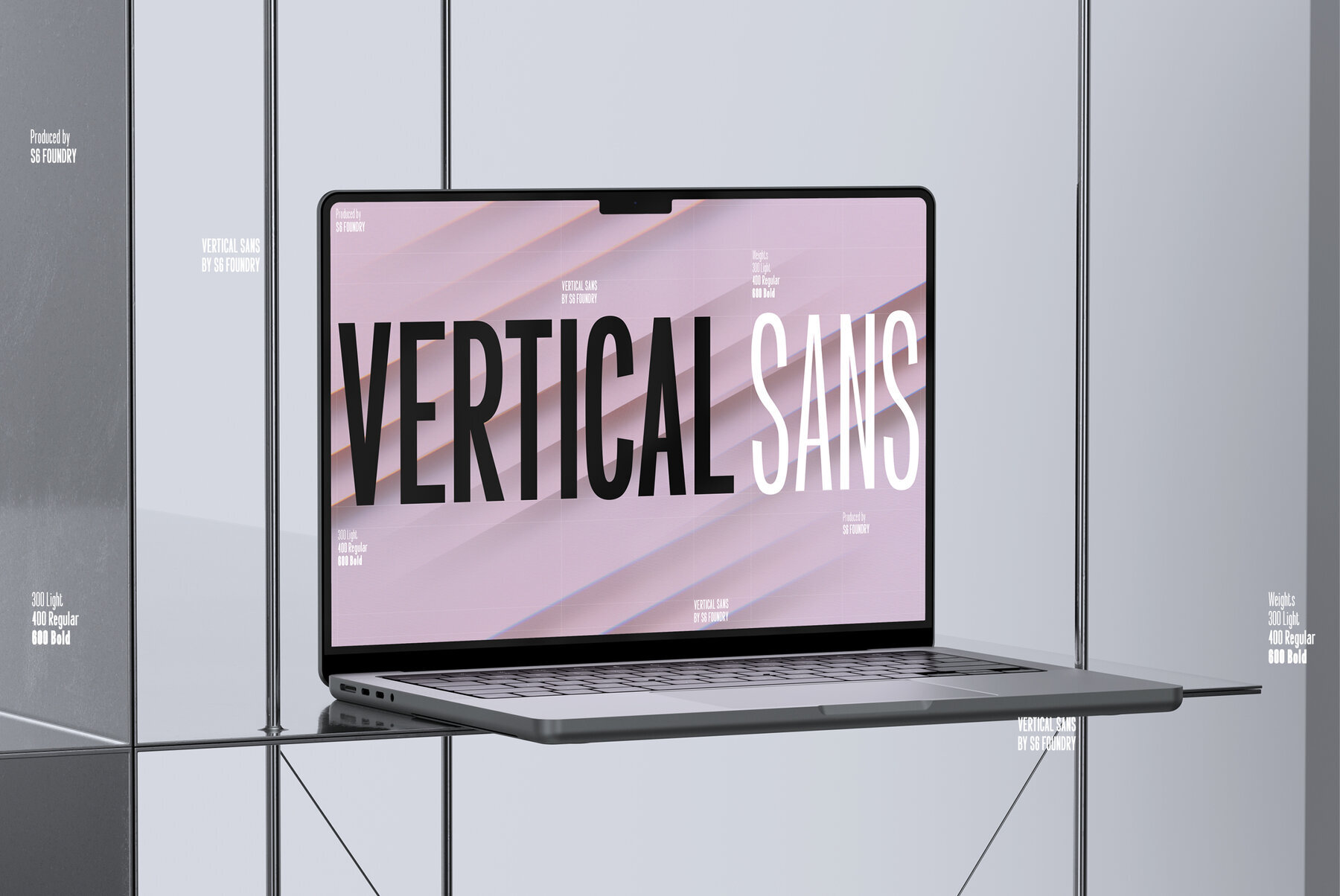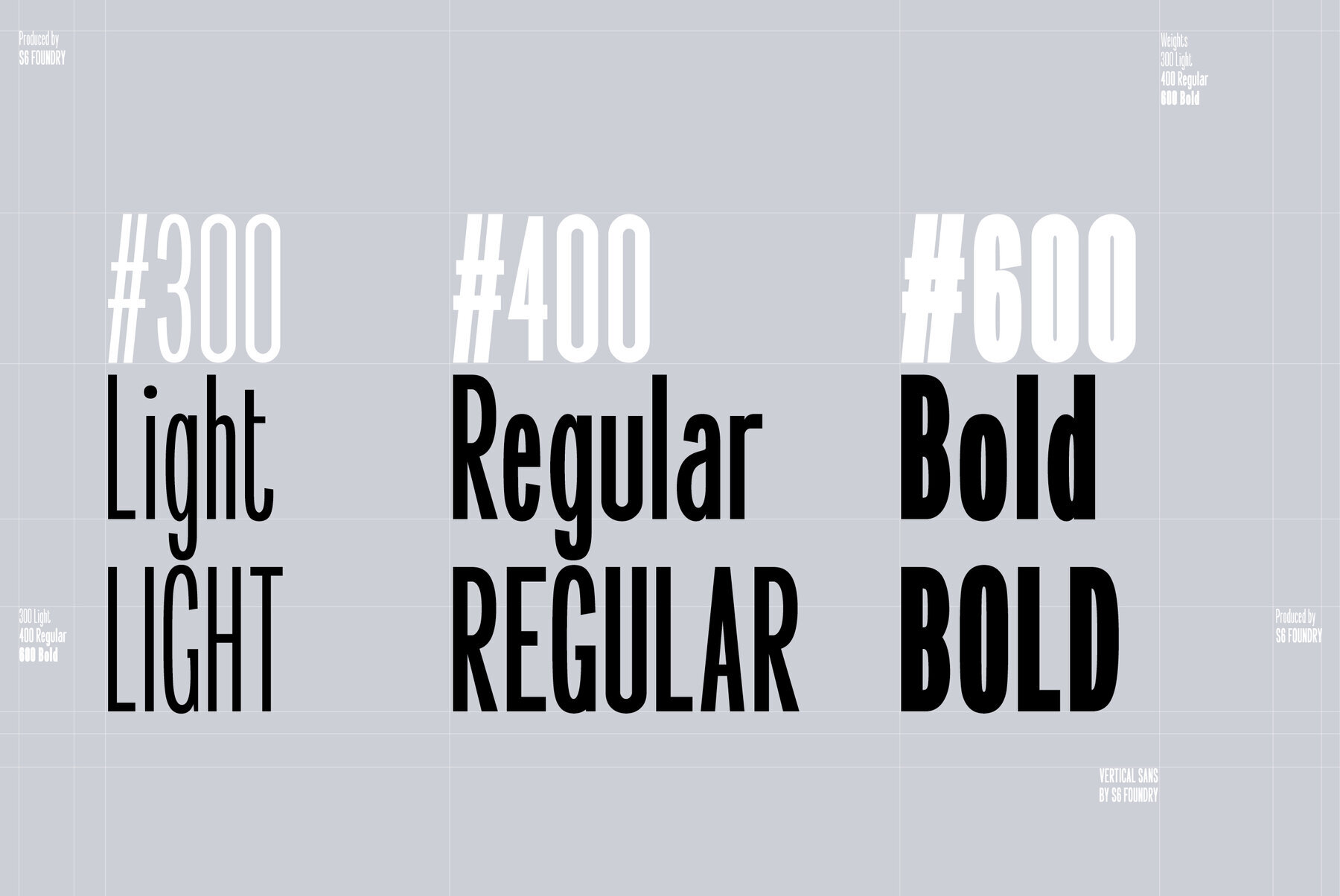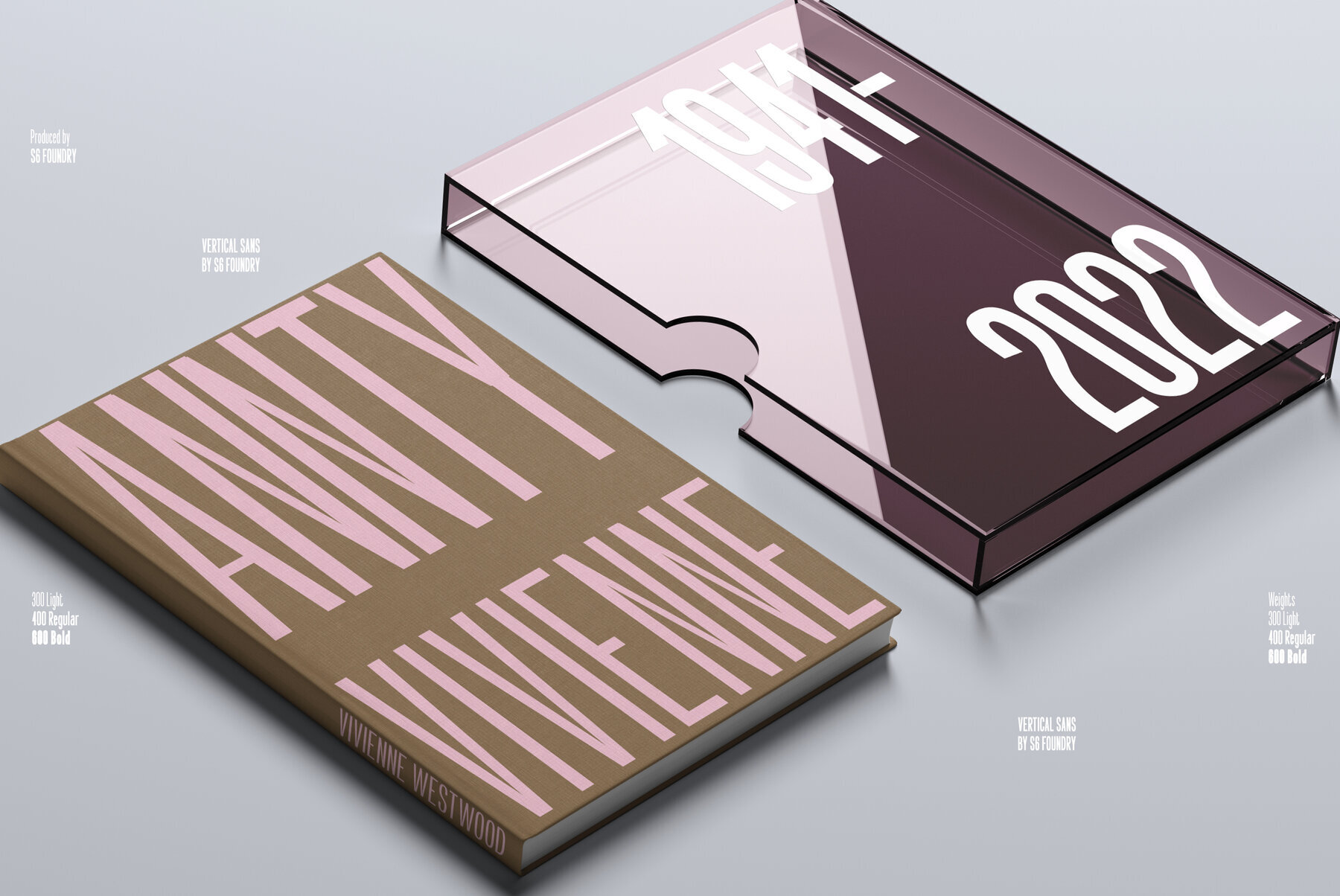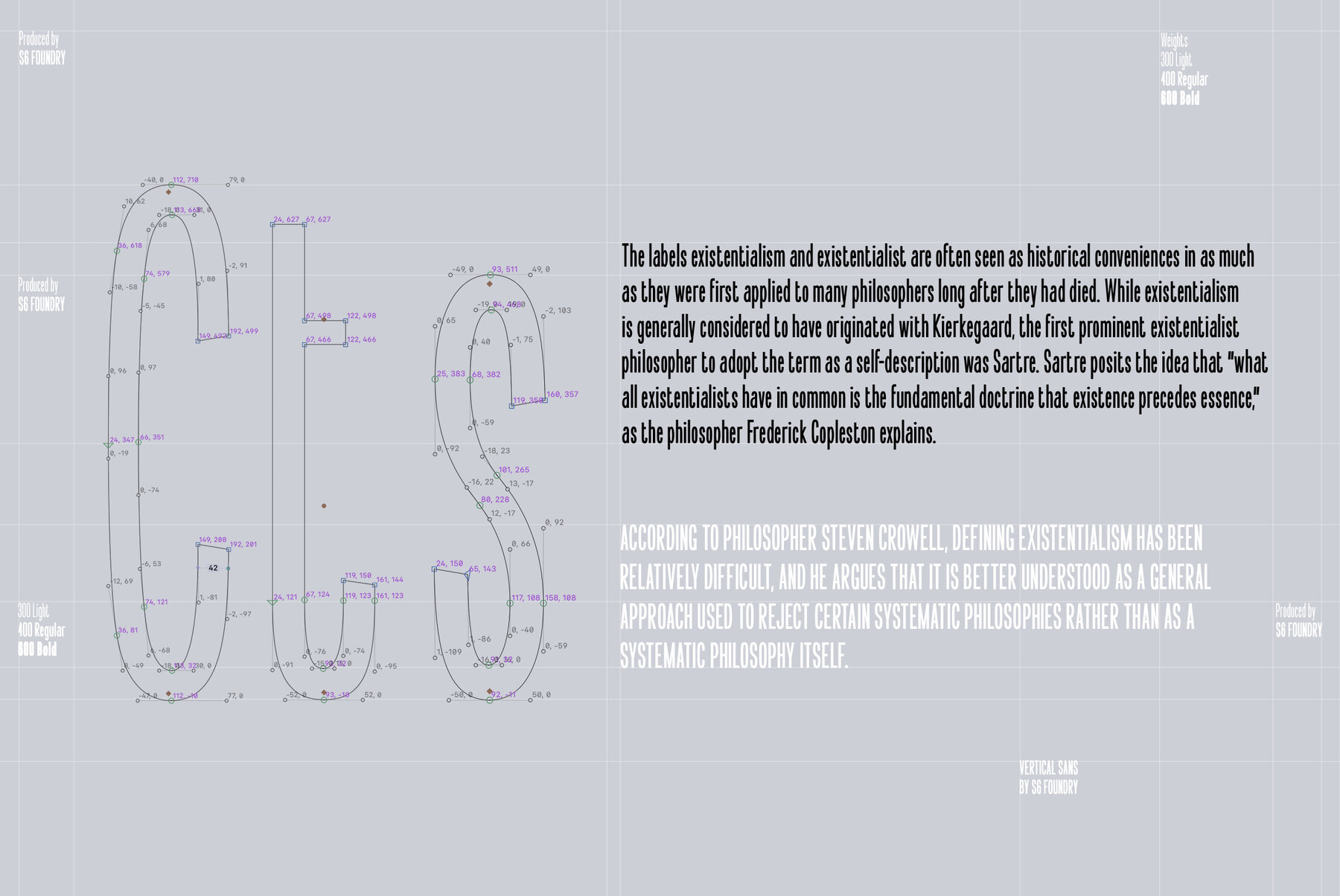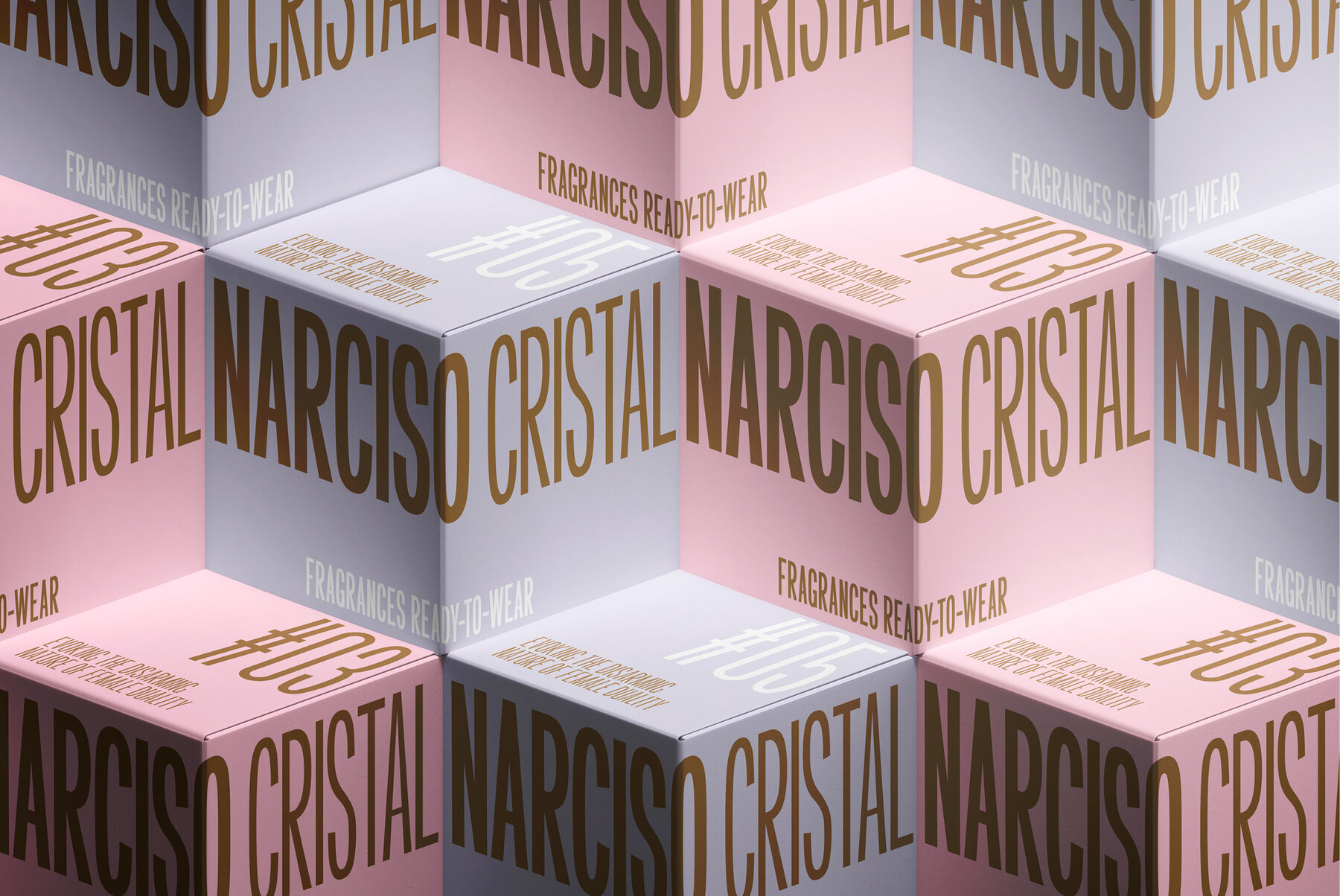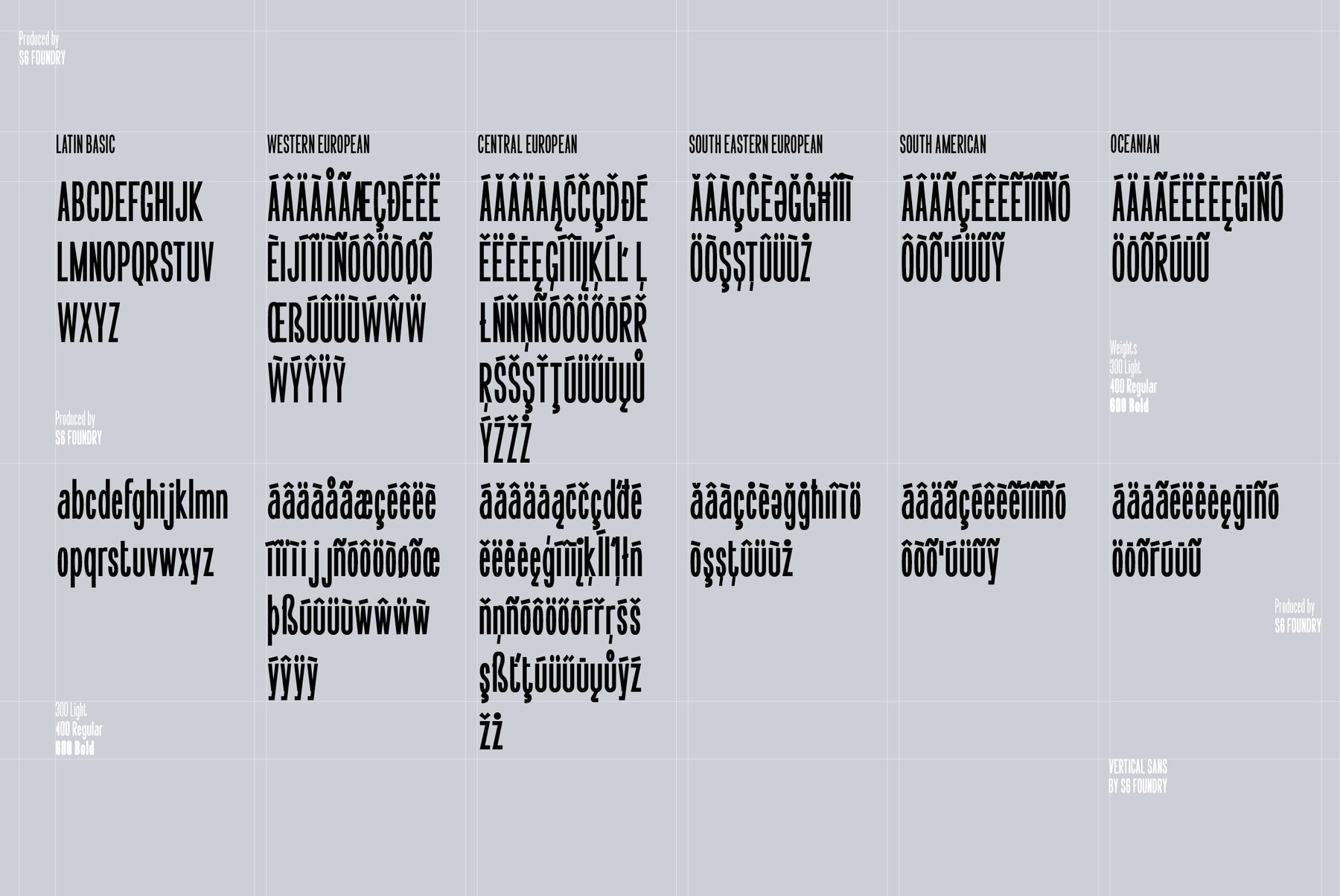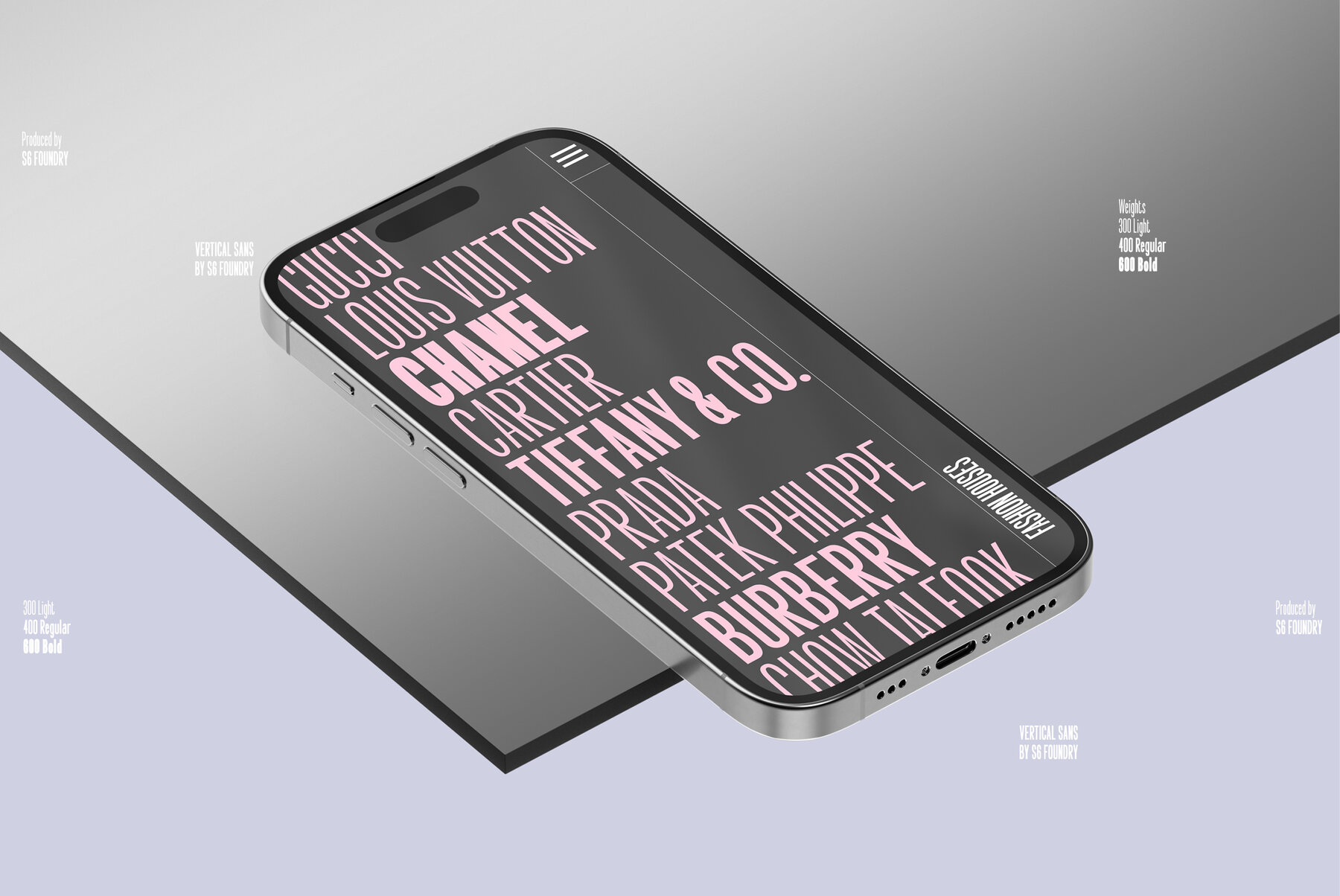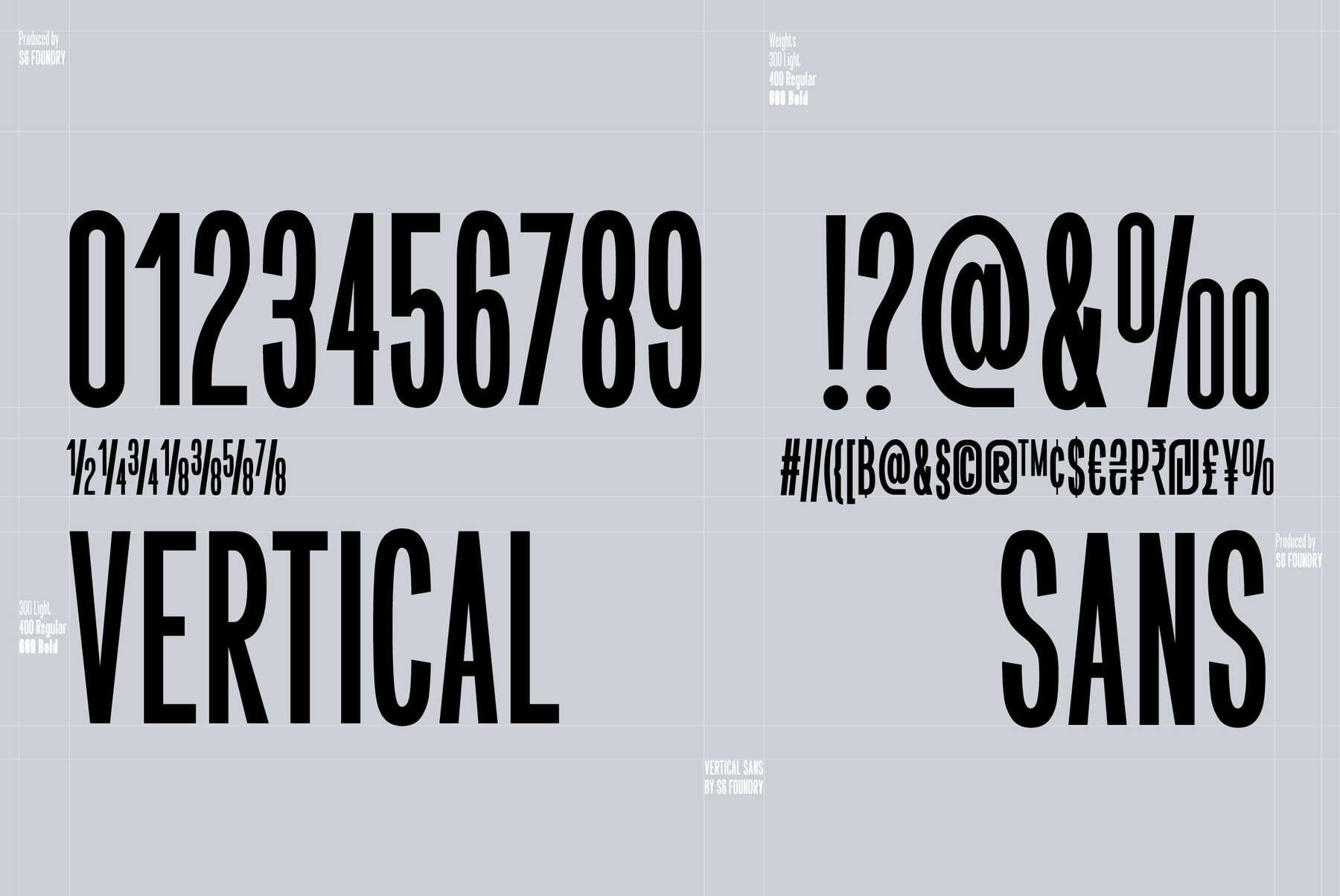
Vertical Sans Font
Vertical Light
Vertical Regular
Vertical Bold
Vertical Sans is an extremely condensed sans set in 3 weights offering a balanced, stylish font perfect for branding and communications projects.